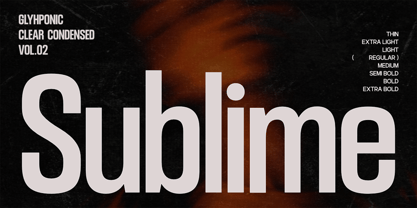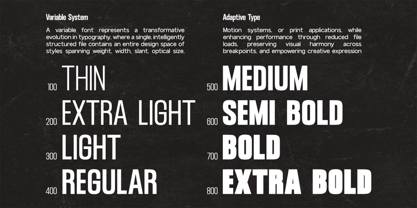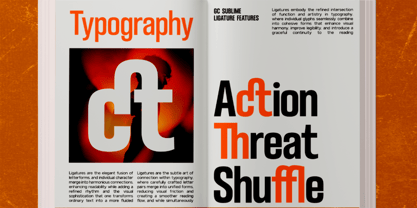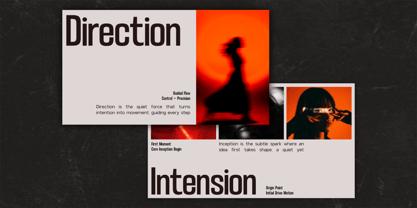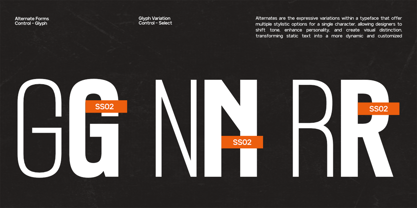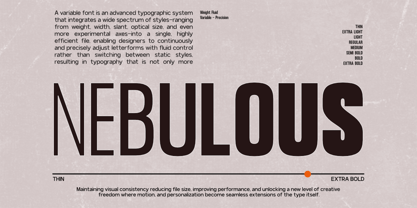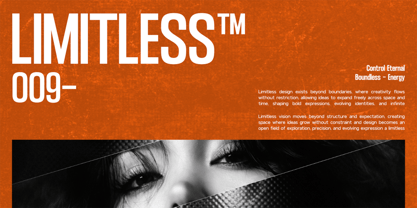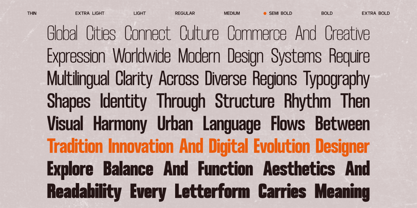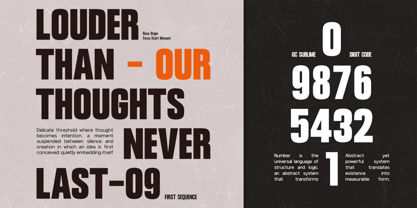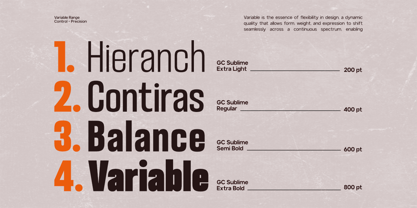
GC Sublime
by Onyx Studio
The GC Sublime Font Family was designed by Muhammad Hafiizh Solana and published by Onyx Studio. GC Sublime contains 8 styles and family package options. More about this family
GC Sublime – Modern Condensed Sans is a contemporary sans serif typeface designed with tight proportions and strong vertical precision. Built to maximize space while maintaining clarity, Sublime delivers a bold and confident typographic voice for modern visual communication.
With its condensed structure, clean geometry, and sharp detailing—as seen in its tall and streamlined letterforms—**GC Sublime** creates a powerful sense of rhythm and alignment. The vertical emphasis enhances readability in compact layouts while maintaining a striking visual presence.
Crafted for both digital and print environments, GC Sublime performs exceptionally well in headlines, branding systems, editorial layouts, posters, and modern interface design. Its condensed form allows designers to fit more content without losing impact, making it ideal for space-efficient yet bold compositions.
As a variable font with multiple weight options, GC Sublime offers flexibility to build clear hierarchy—from light, refined text to bold, dominant headlines—while preserving consistency and legibility.
Whether used for high-impact headlines or structured layouts, GC Sublime brings clarity, strength, and modern condensed precision to your typography.
Features:
- Variable Font (8 Weight Options)
- Condensed Sans Serif Construction
- Uppercase & Lowercase
- Numbers & Punctuation
- Clean Geometry & Vertical Precision
- Multilingual Support (170+ Languages)
GC Sublime — tight, sharp, and confidently modern.
Designers: Muhammad Hafiizh Solana
Foundry: Onyx Studio